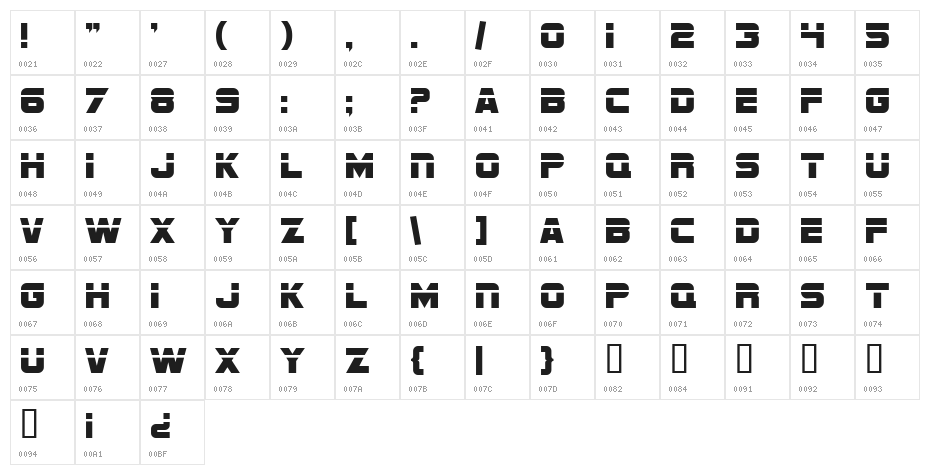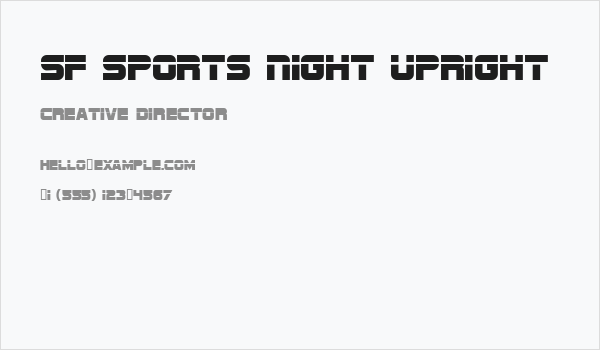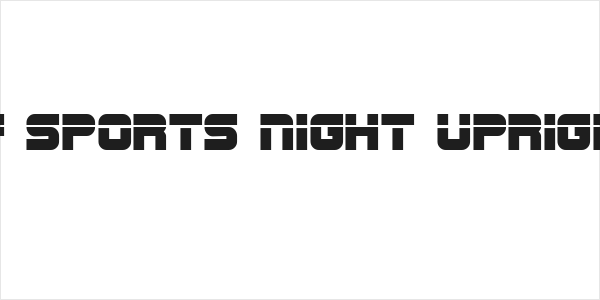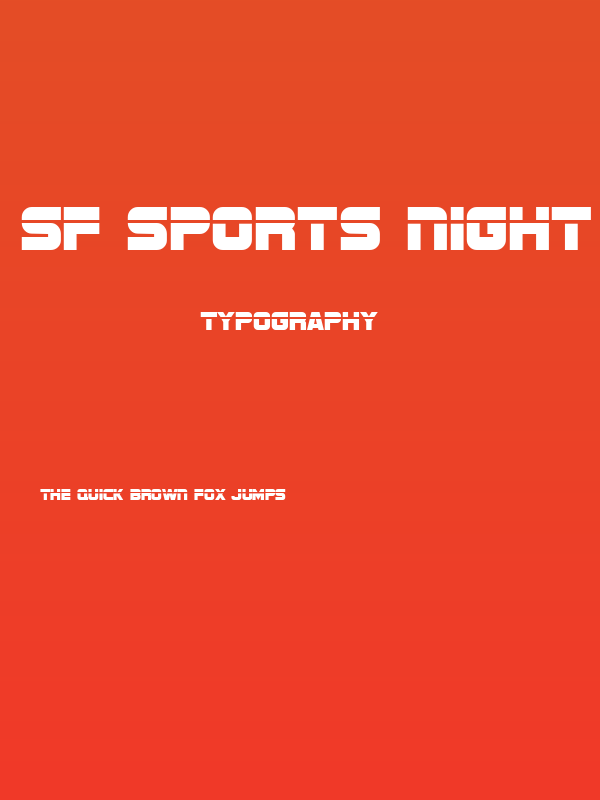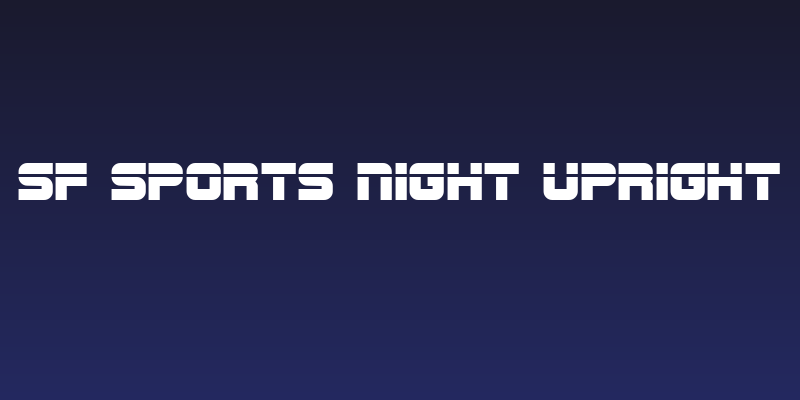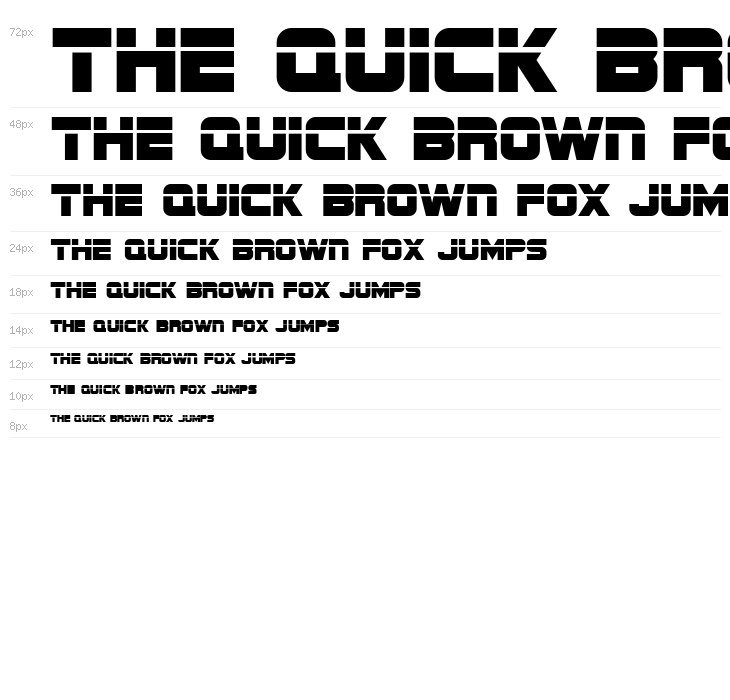
SF Sports Night Upright Font
SF Sports Night Upright Description
This font features a bold and striking design with a distinctly modern and geometric style. The characters are constructed with sharp angles and clean lines, giving it a futuristic and sporty appearance. The uppercase letters are uniform in height, while the numbers and special characters maintain the same boldness and angular design. The overall look is dynamic and impactful, making it suitable for attention-grabbing headlines or branding that requires a strong visual presence.
| Proposed Projects | Ideal for sports branding, event posters, futuristic designs, and dynamic headlines. |